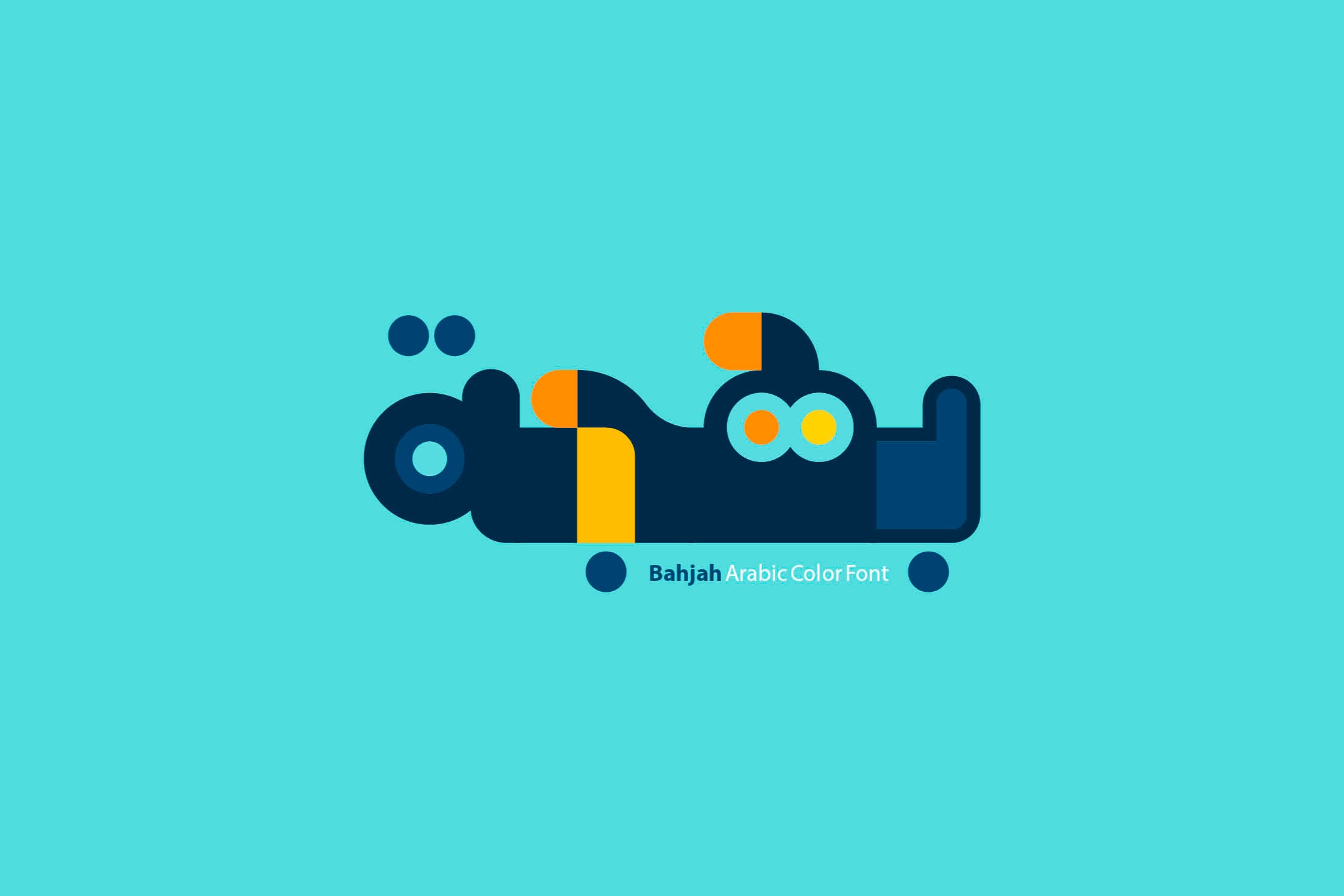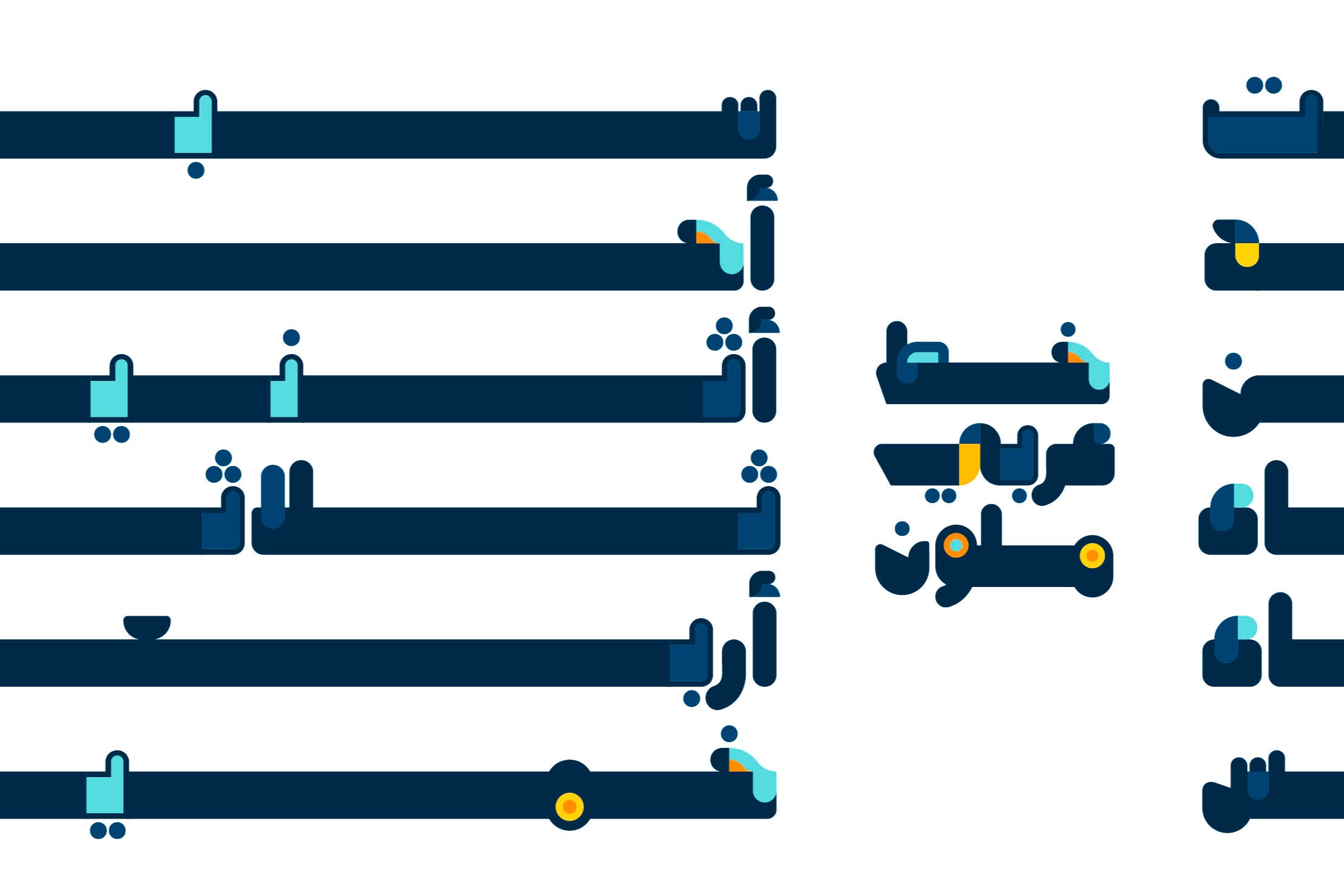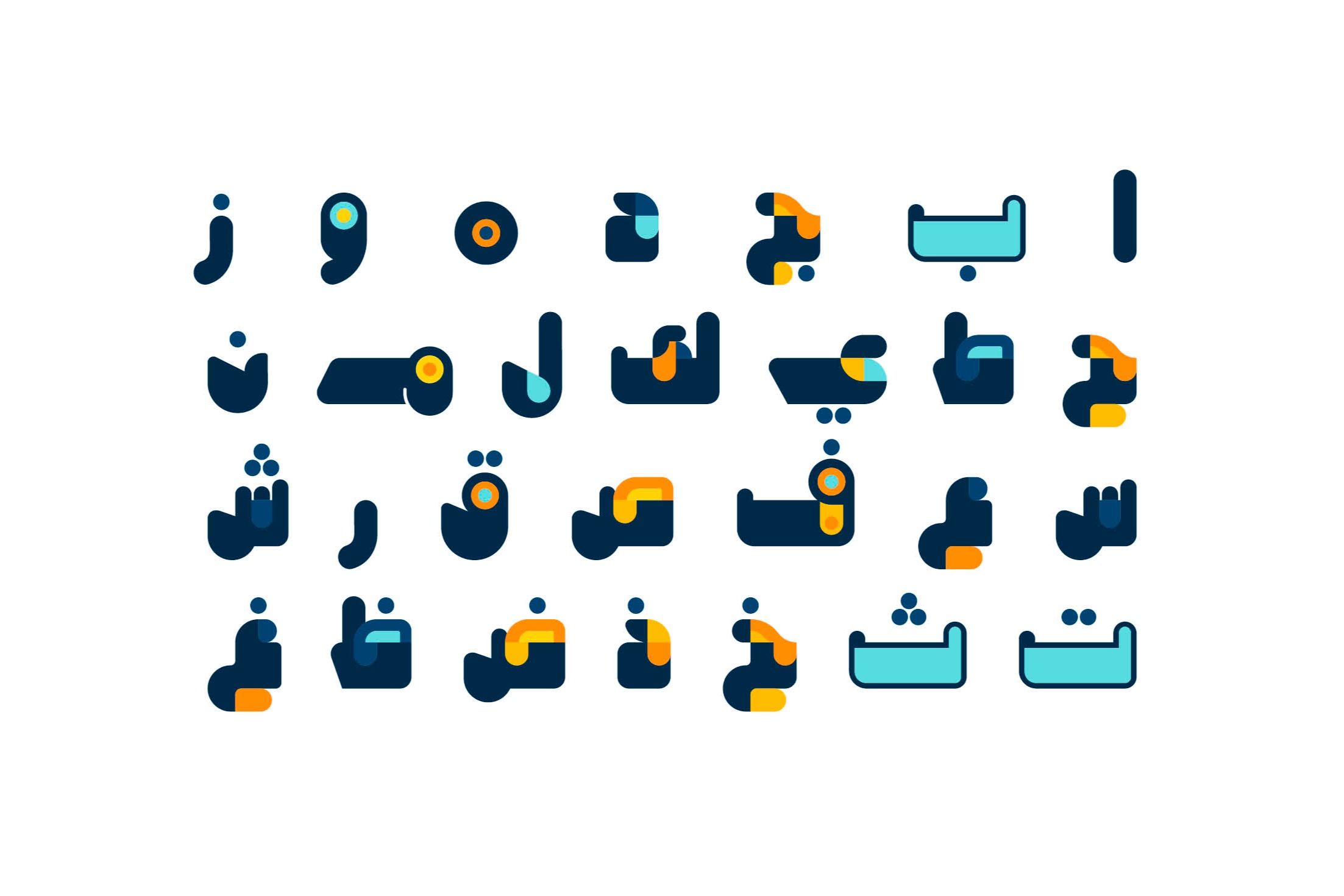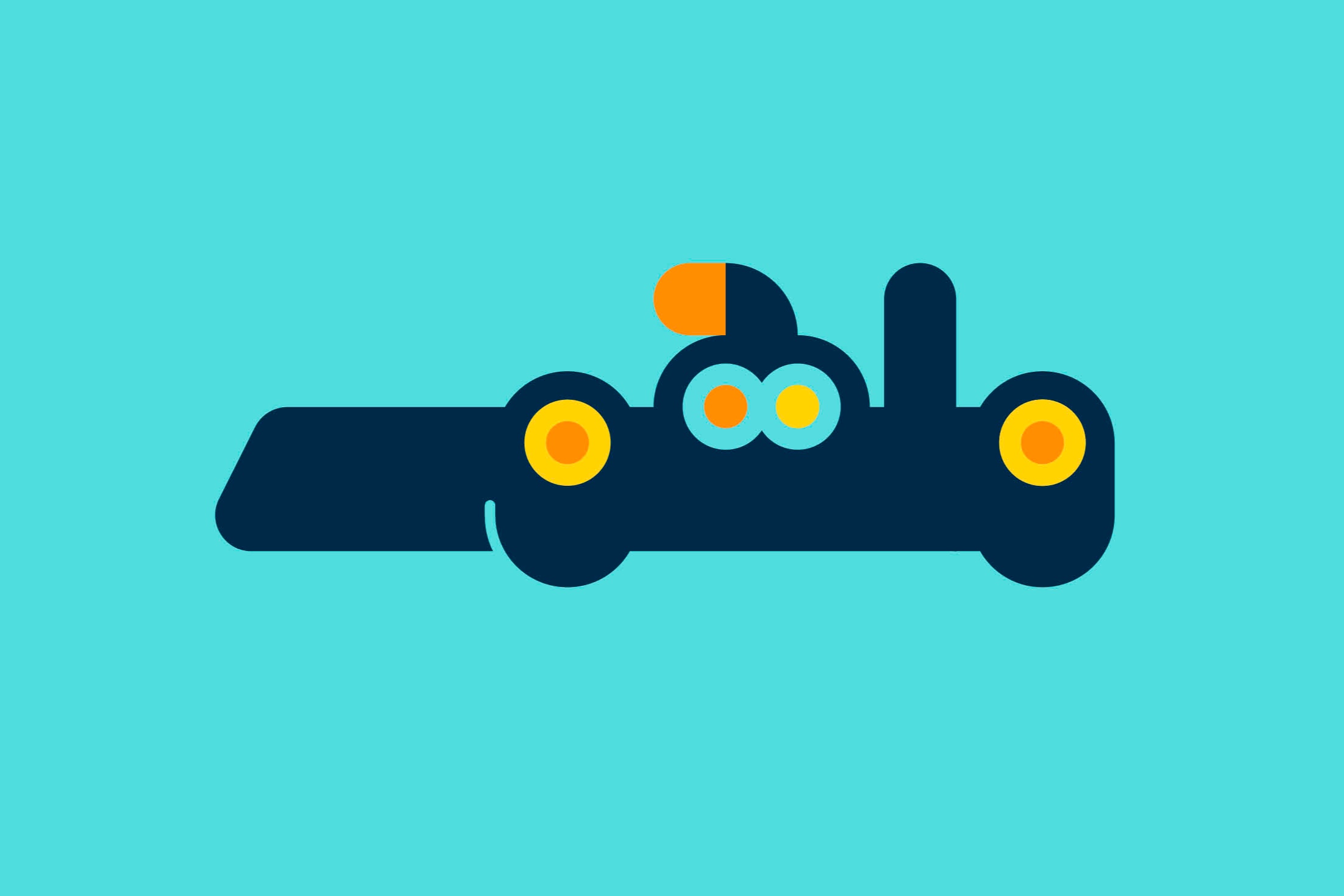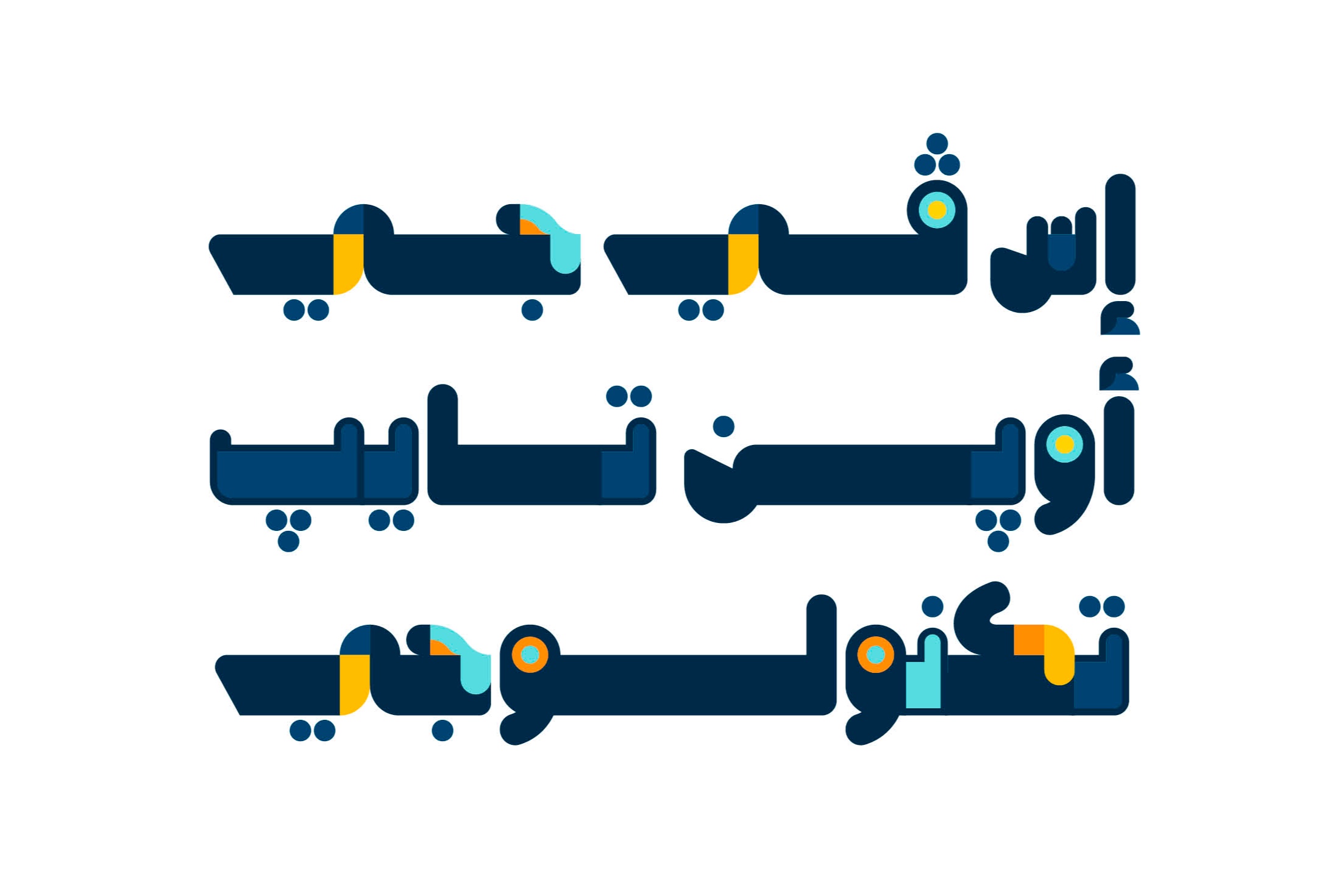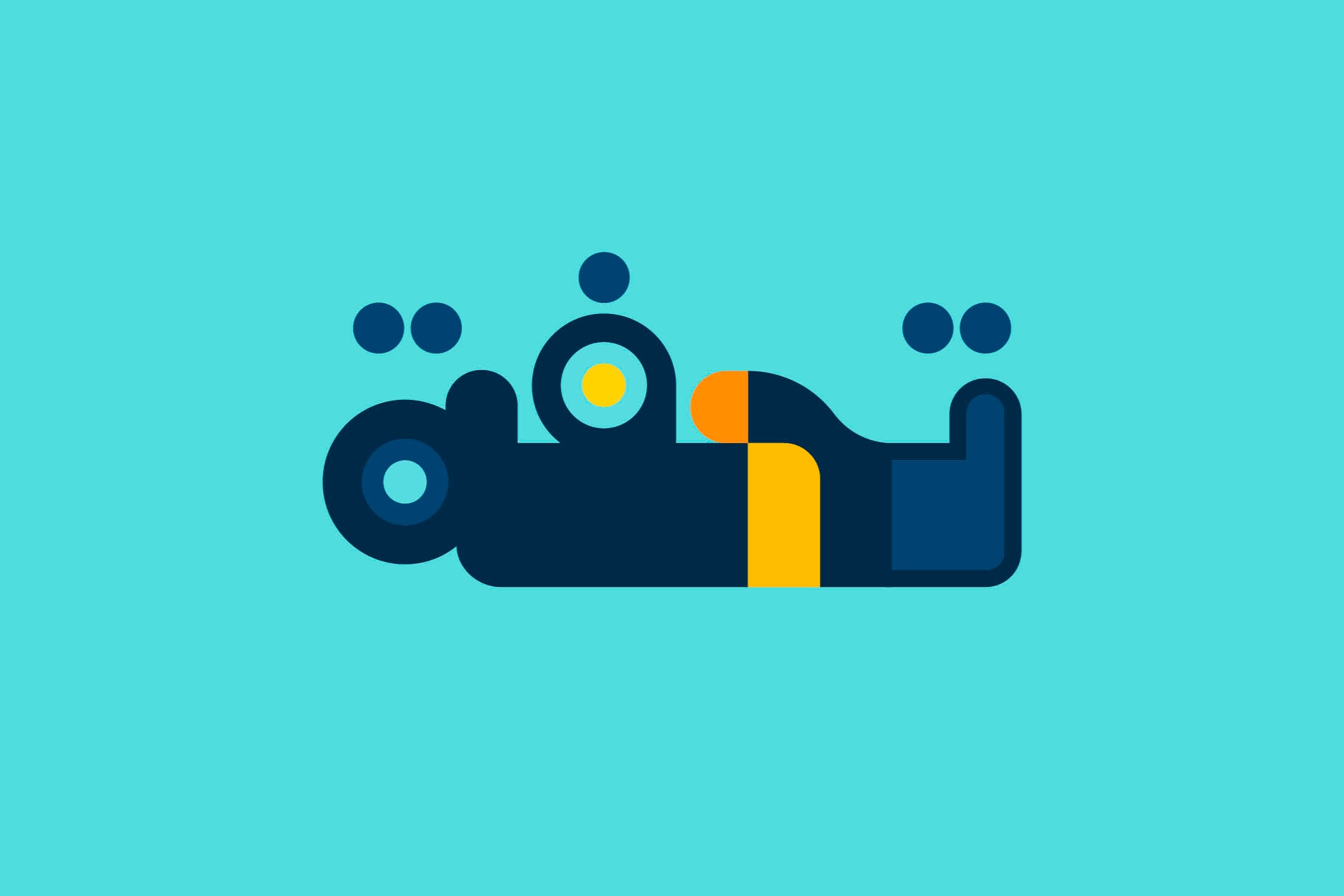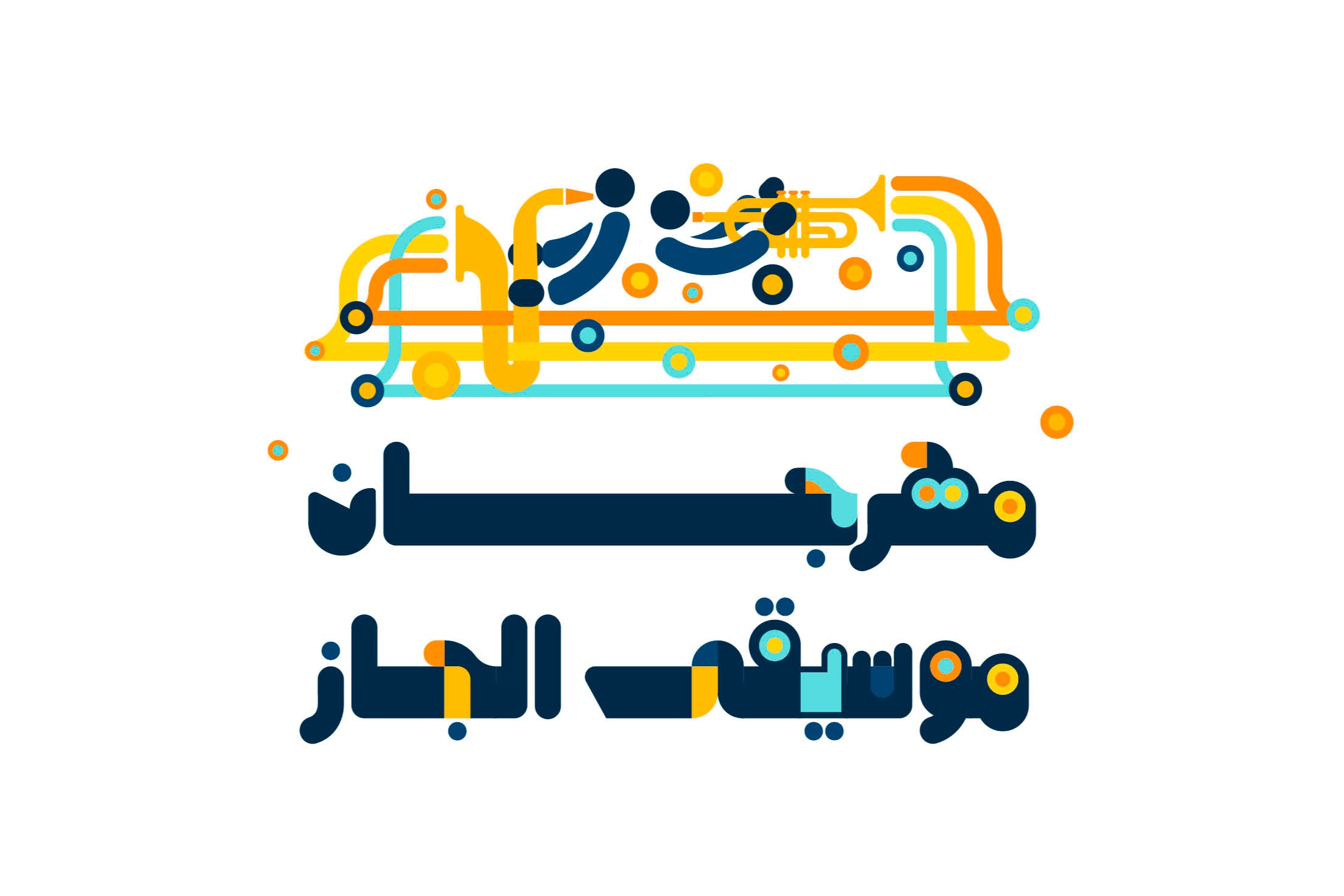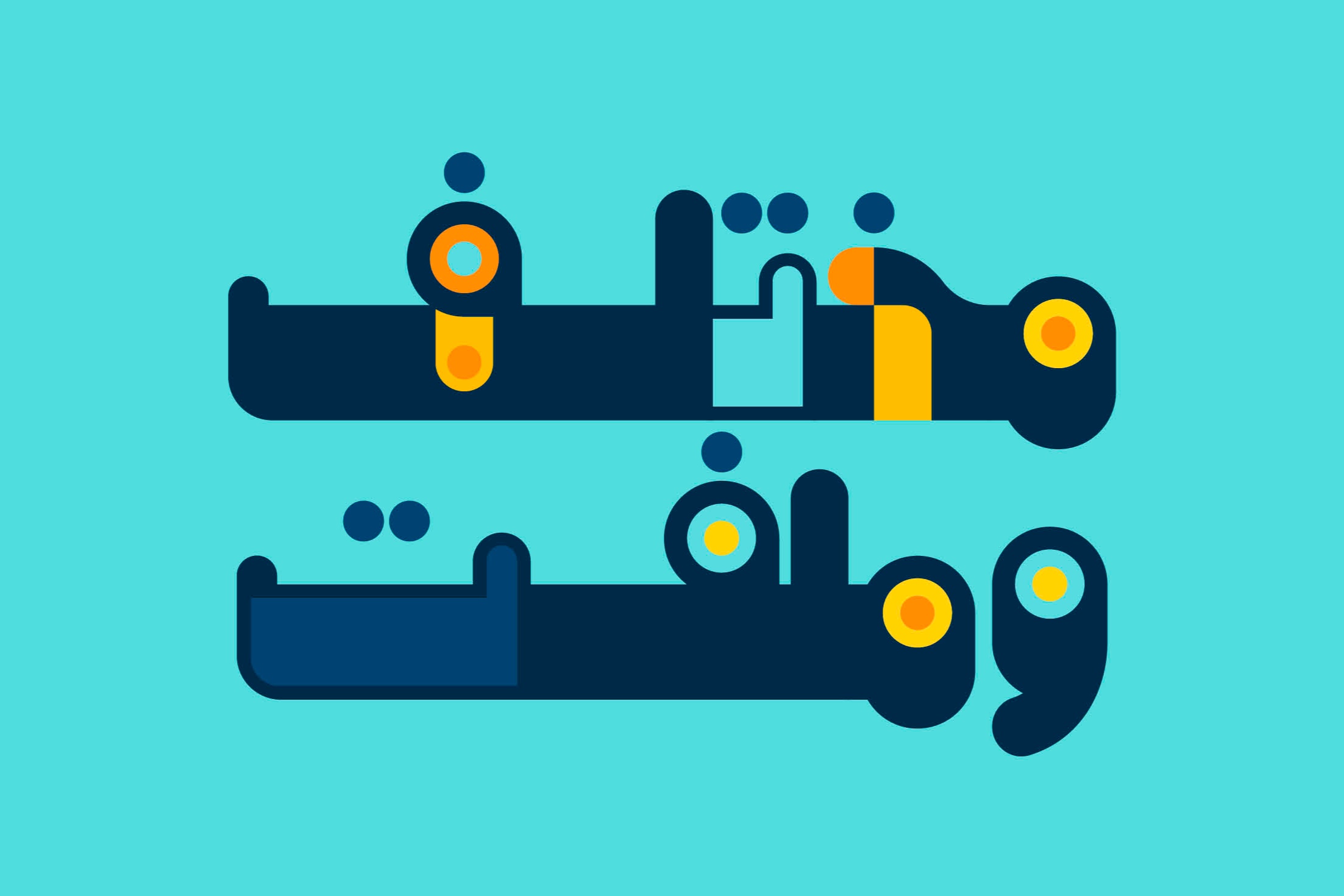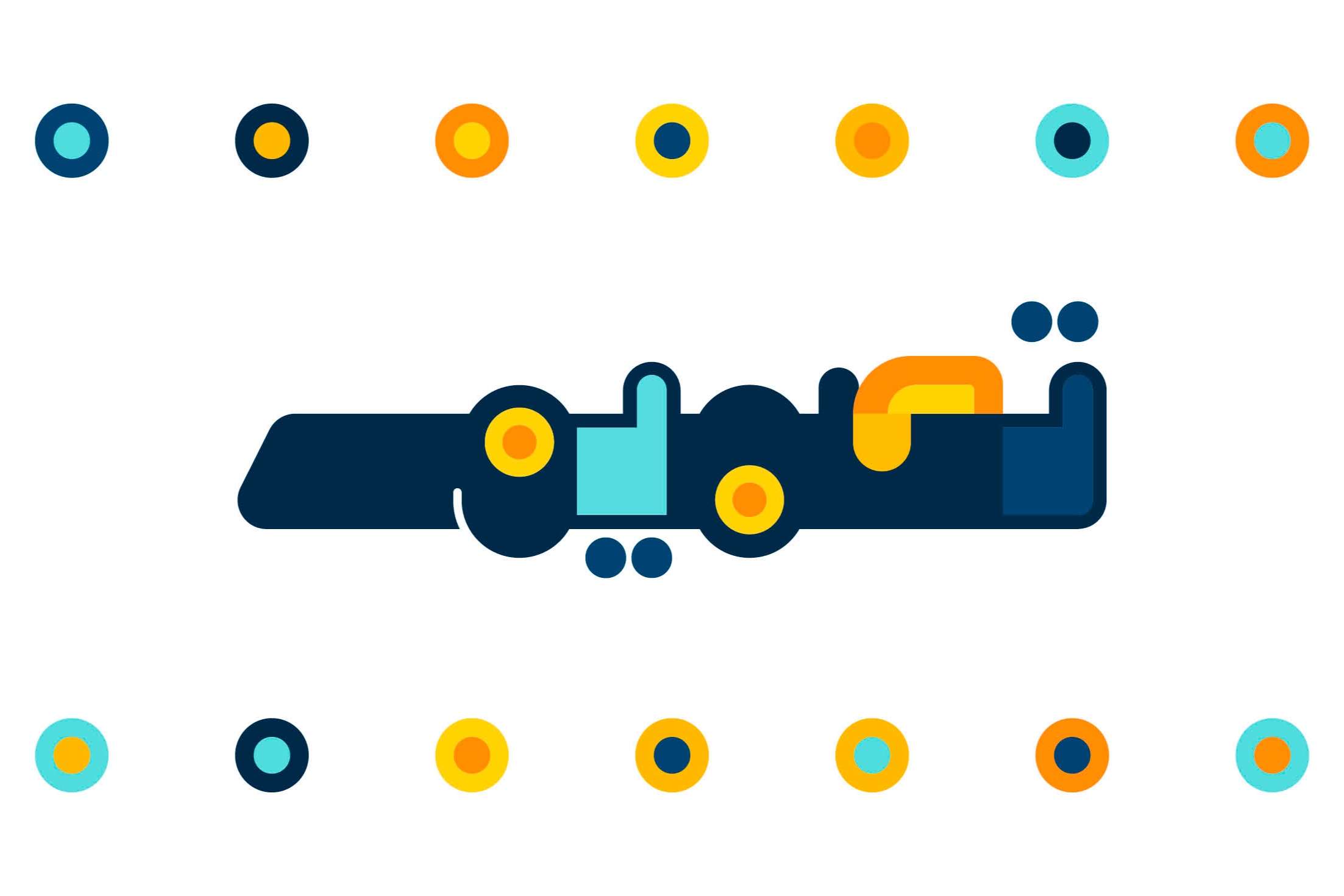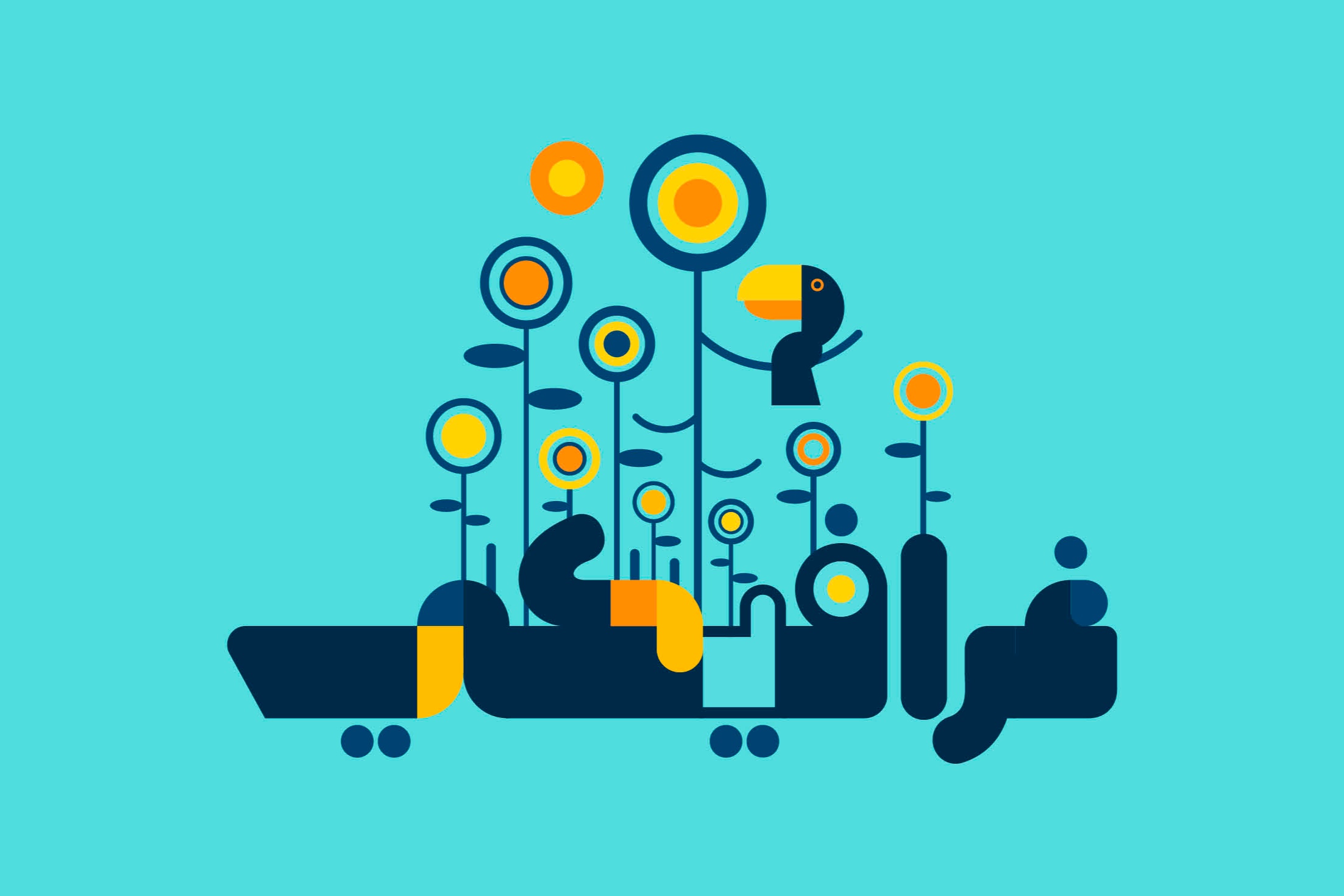
Bahjah (Arabic for “Joy”) is an Arabic display font characterized by a joyful and energetic letterform style. The font is suitable for a wide range of modern applications, including web, print, and smartphones. It is available in both vector and raster color font formats (SVG‑OpenType and SBIX).